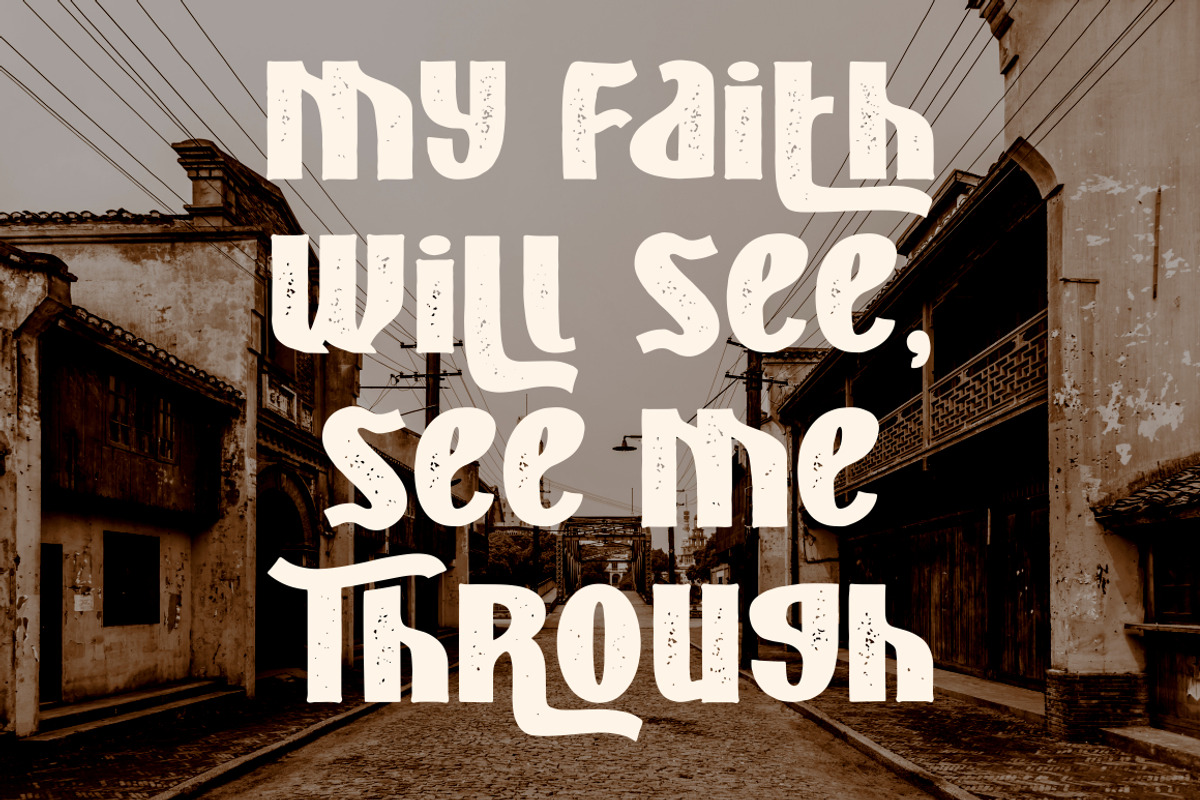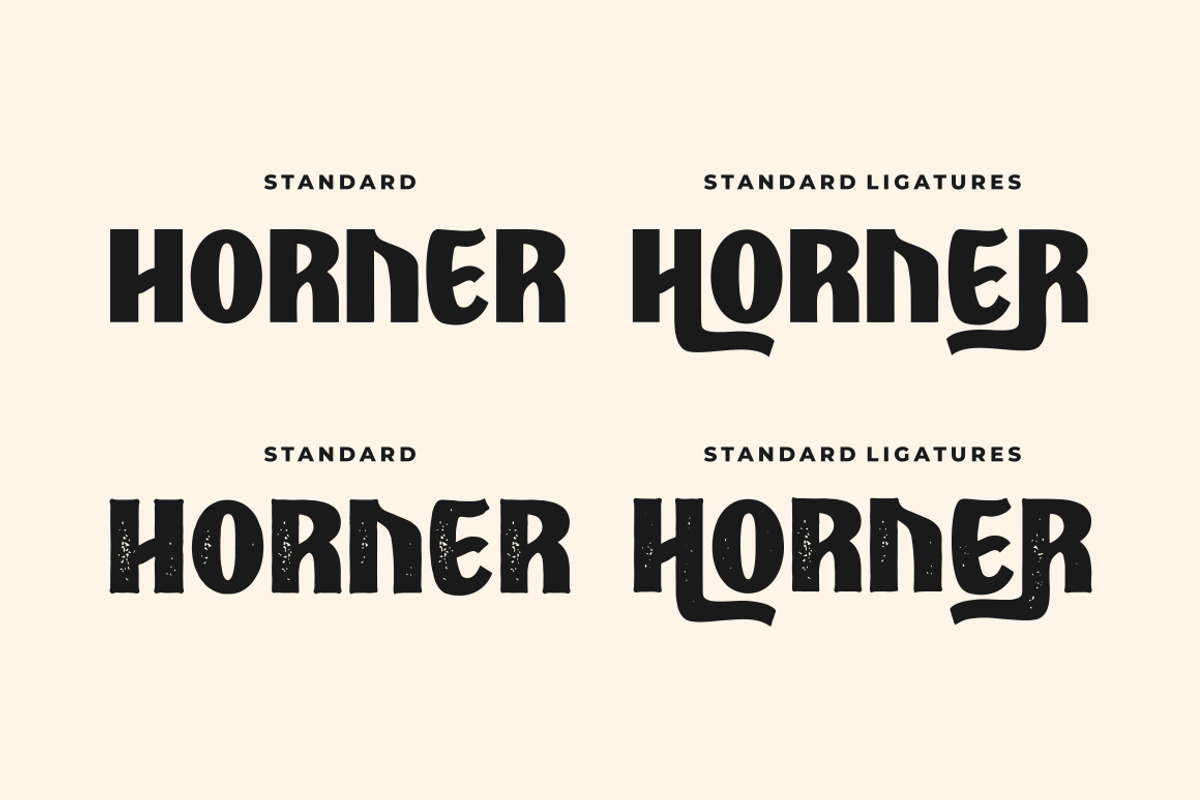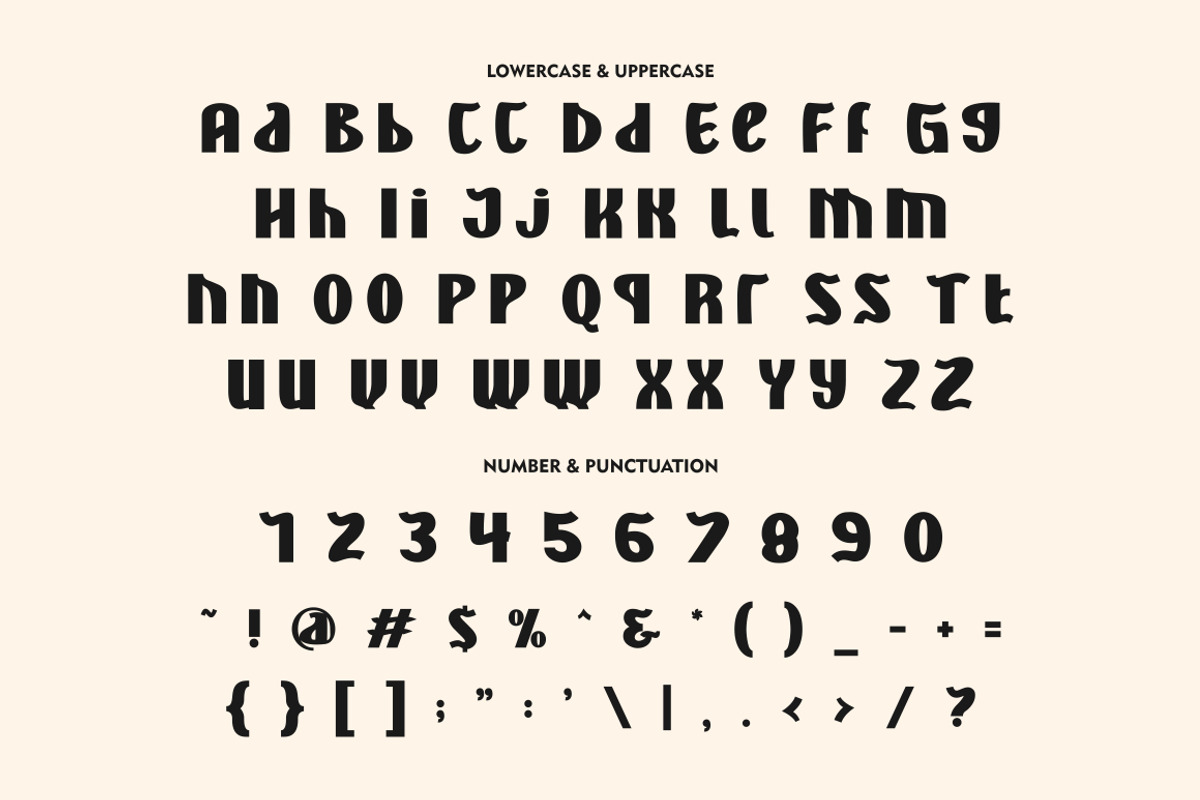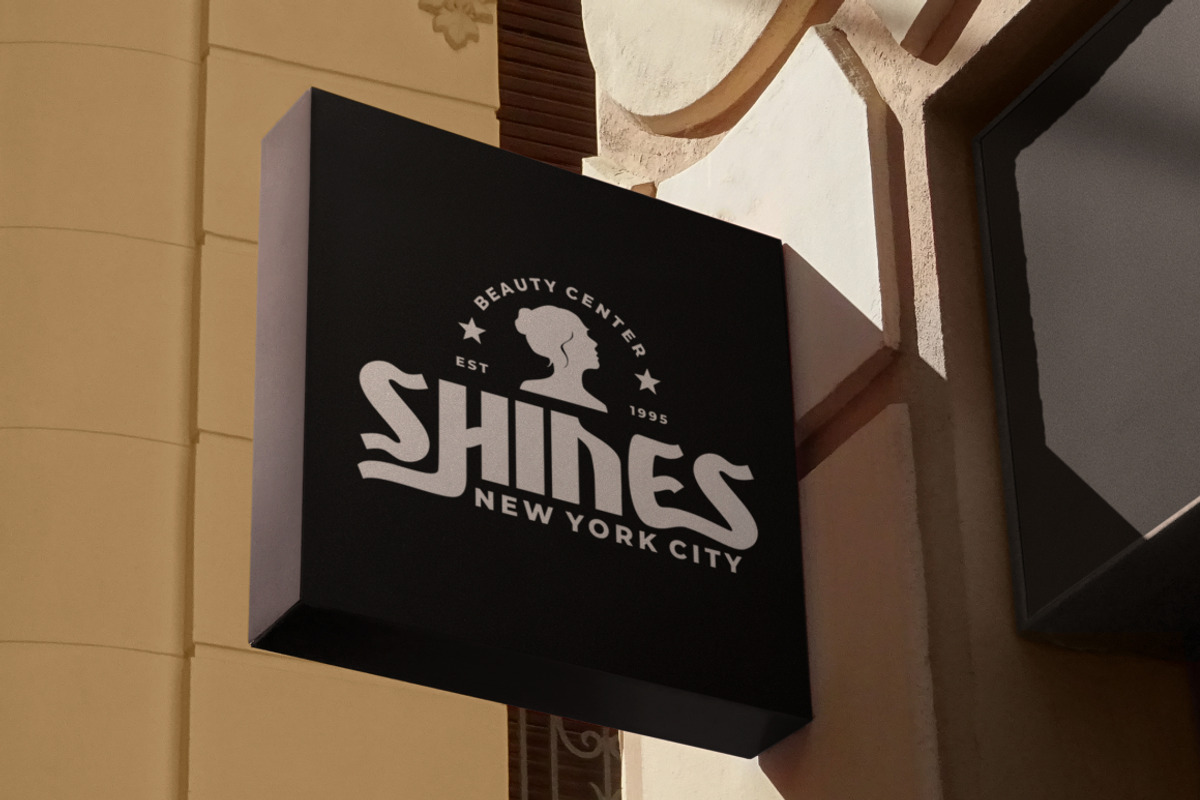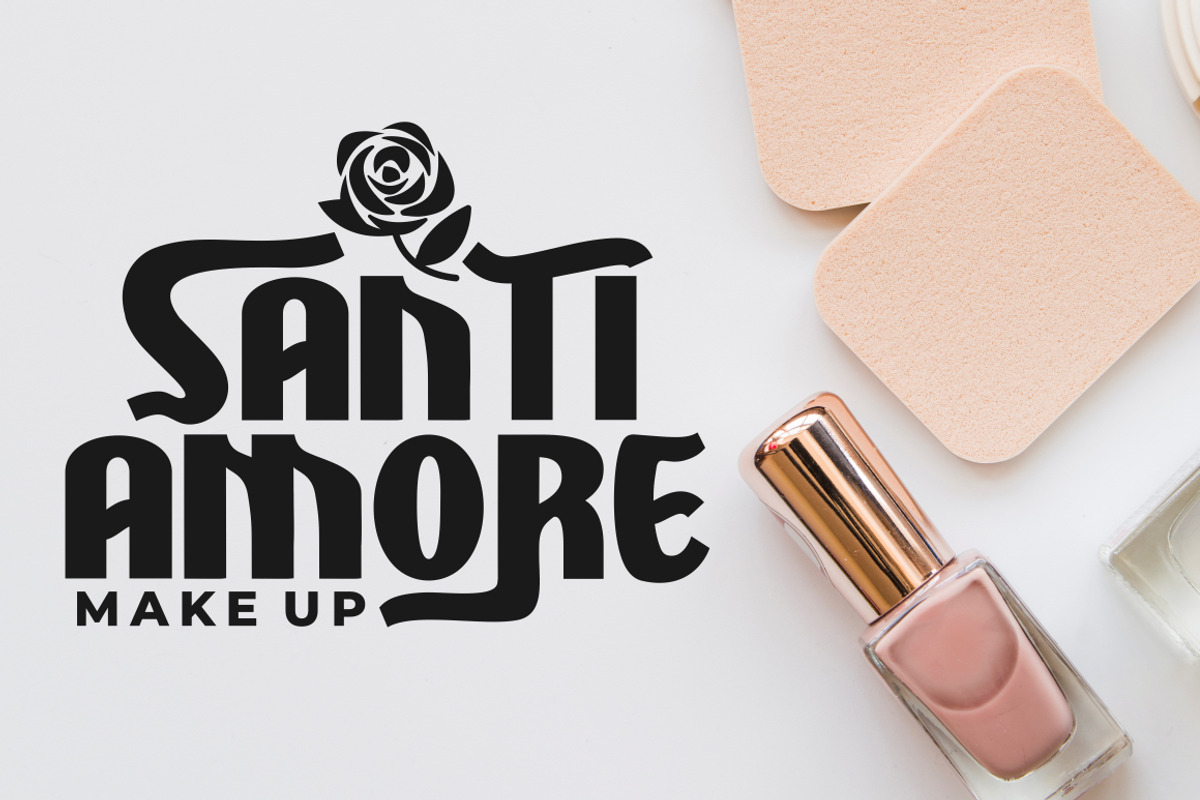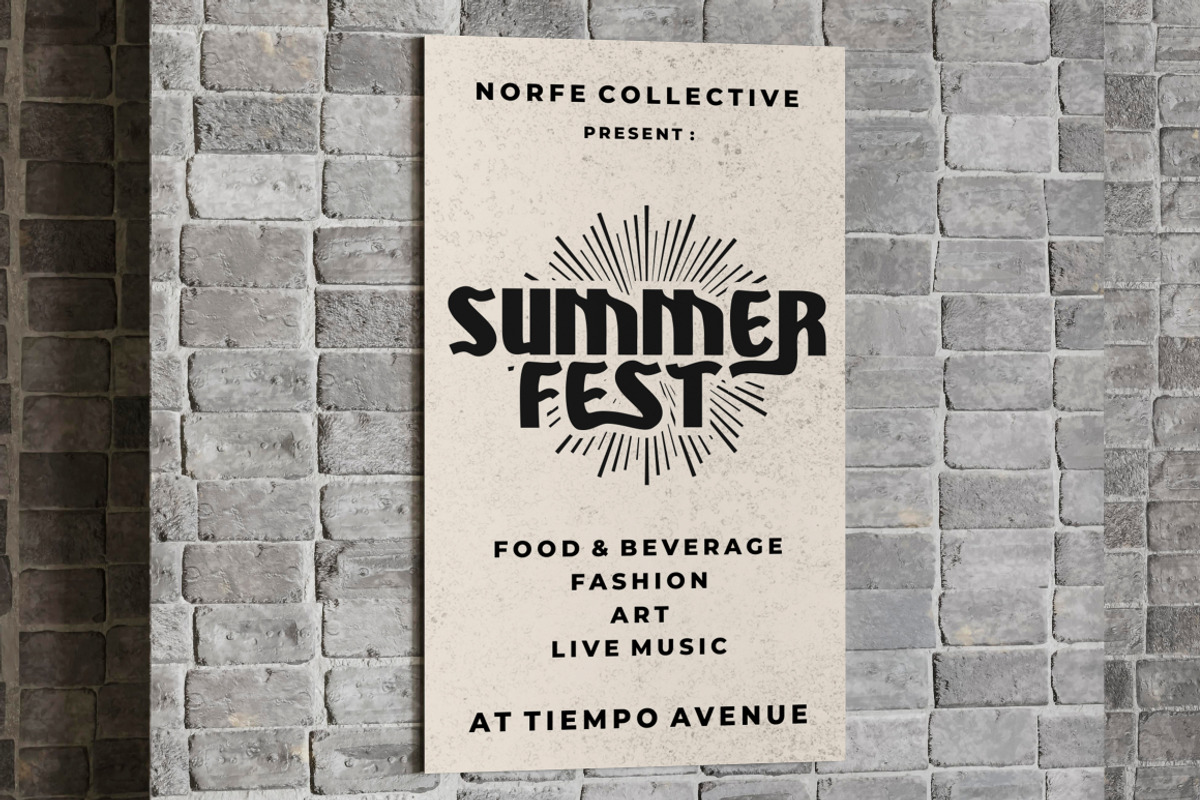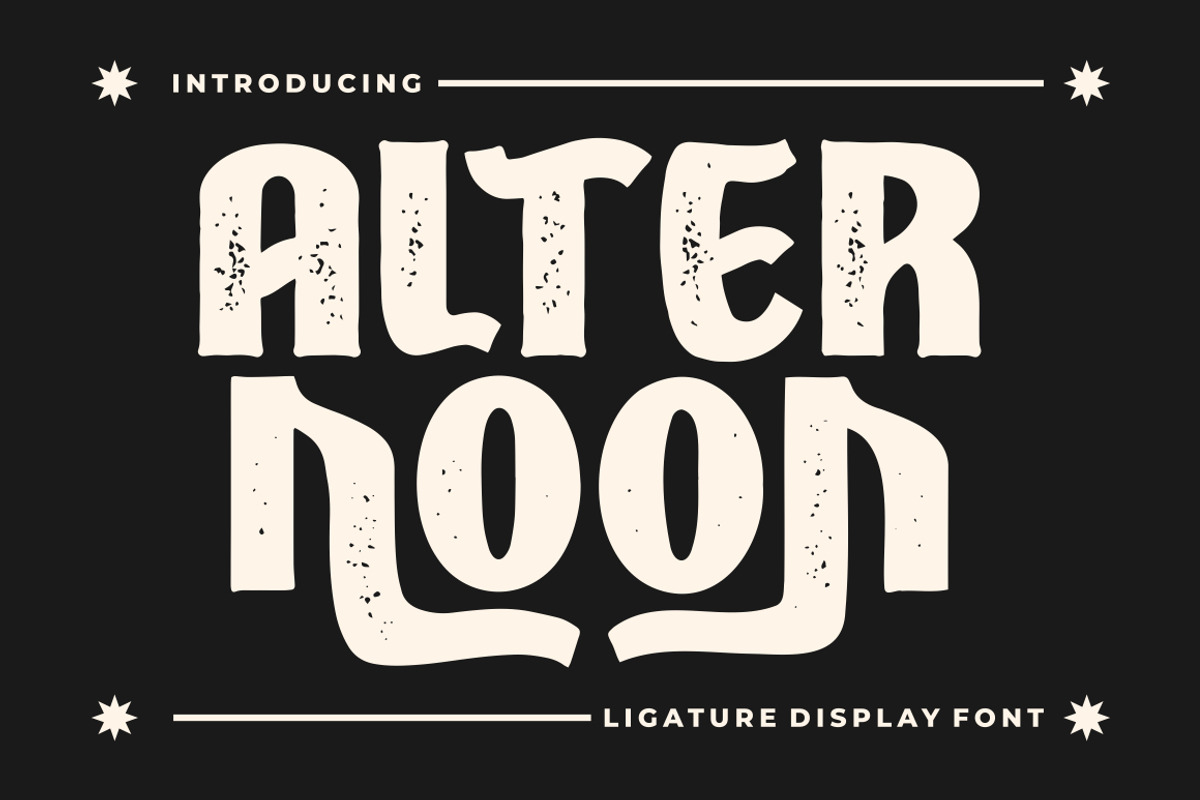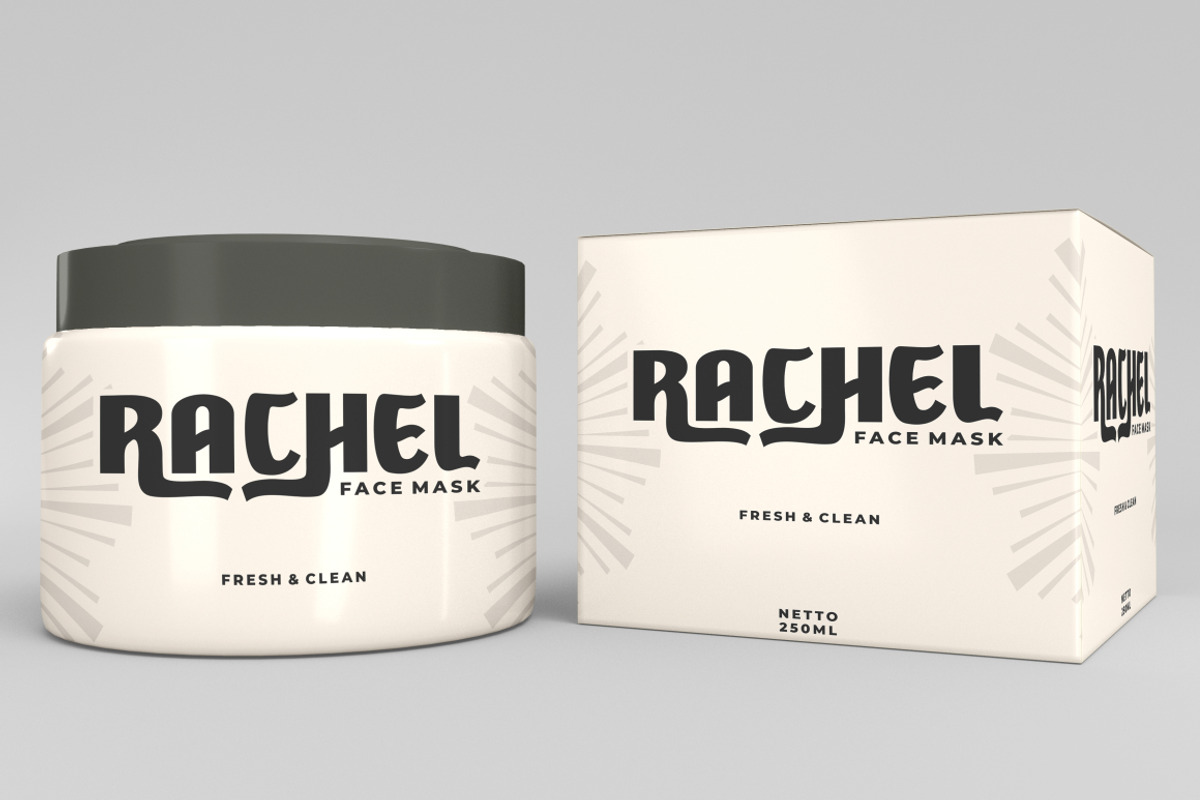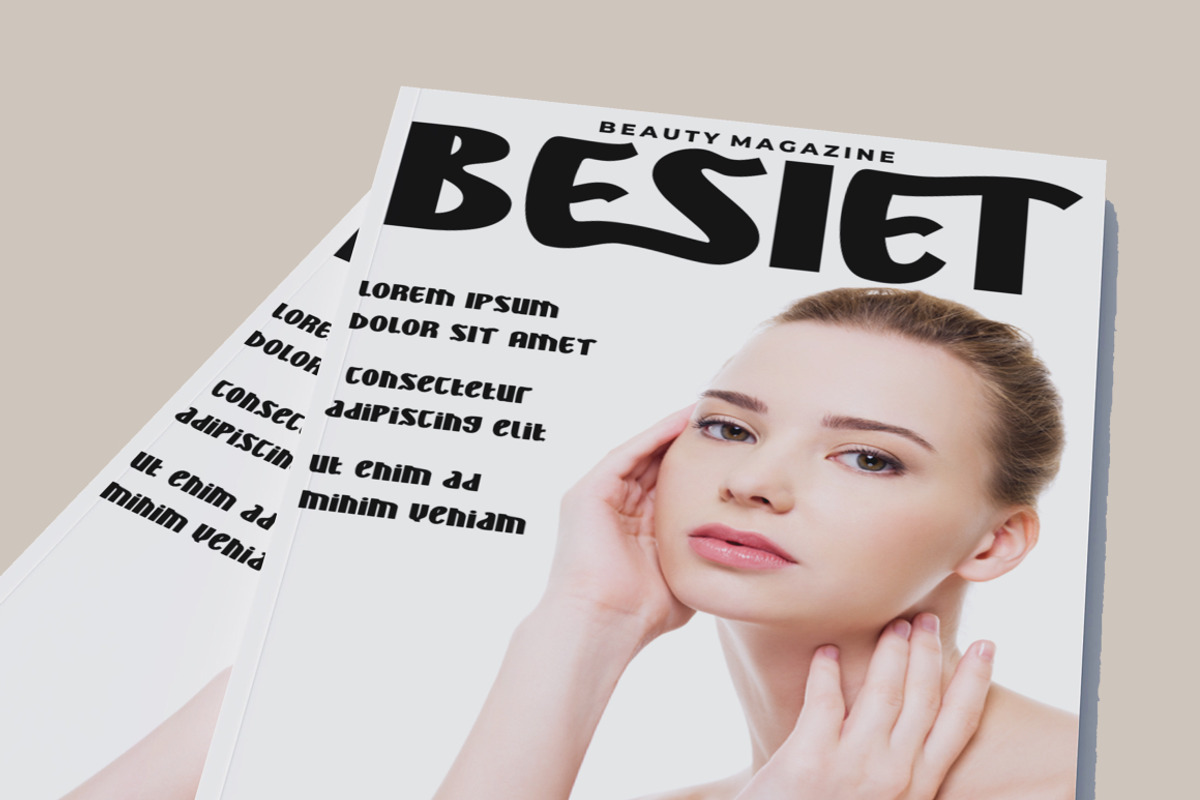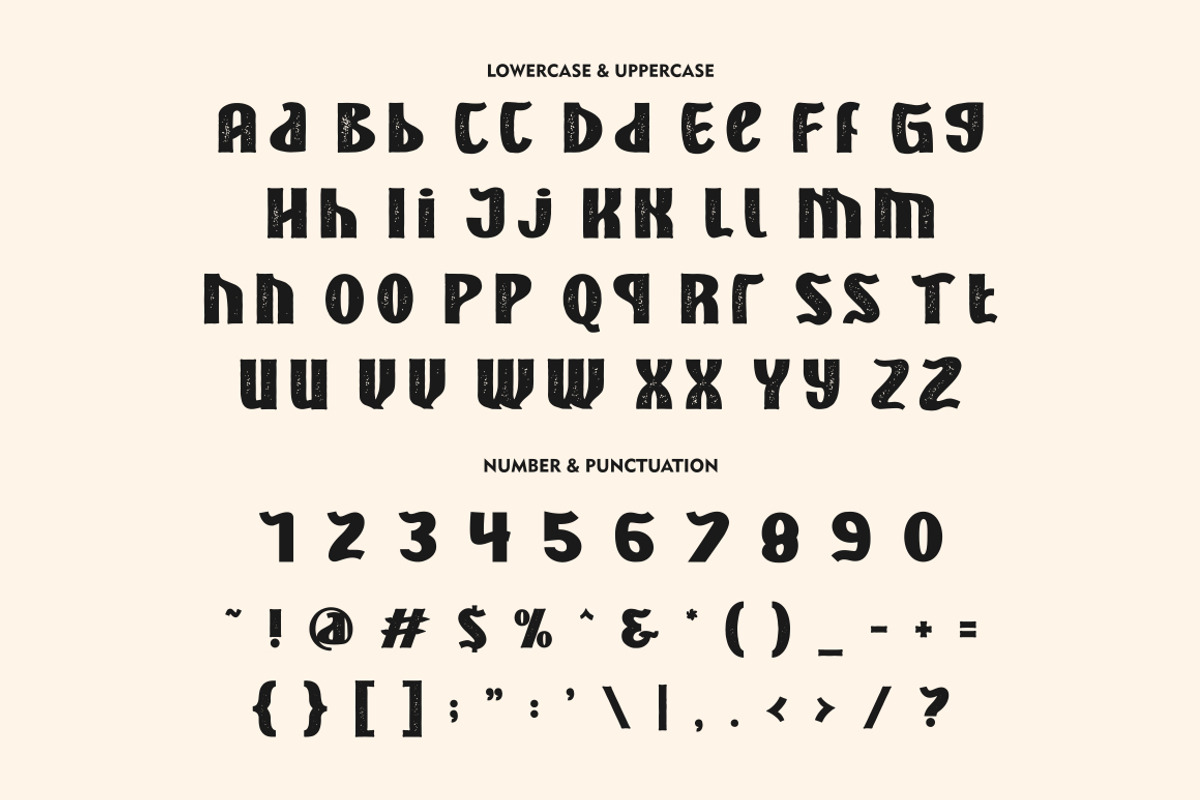
Alternoon - Ligature Display Font
Alternoon - Ligature Display Font. Alternoon inspired by the ligature style and well balanced curves. Alternoon font makes for more fun, trendy and more lively. Alternoon has a surprise from alternate that will make your work display even more beautiful.
Alternoon perfect for a professional touch which makes it even more unique ligature and classic display font. But Alternoon is also suitable for logos, branding, greeting cards, invitation cards, advertisements, titles, healines, book titles, stickers, packaging, quotes, posters, t-shirts/apparel, billboards and others.
The alternative characters were divided into several Open Type features such as Swash, Stylistic Sets, Stylistic Alternates, Contextual Alternates, and Ligature. The Open Type features can be accessed by using Open Type savvy programs such as Adobe Illustrator, Adobe InDesign, Adobe Photoshop Corel Draw X version, And Microsoft Word. This font is also support multi language.
Comes with feature :
- Opentype (Alternates And Ligatures)
- Number, Punctuation And Symbols
- Multilanguage Support.